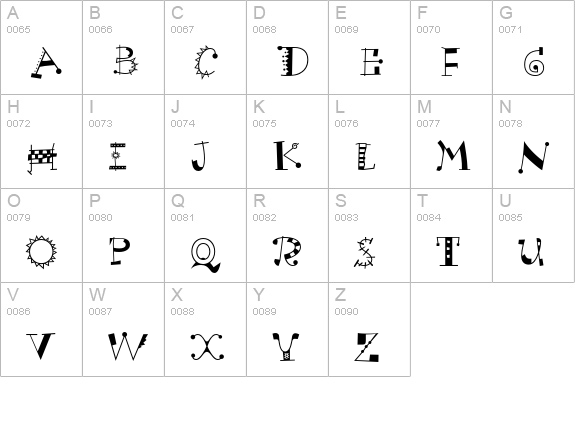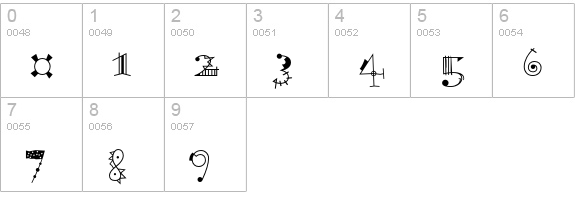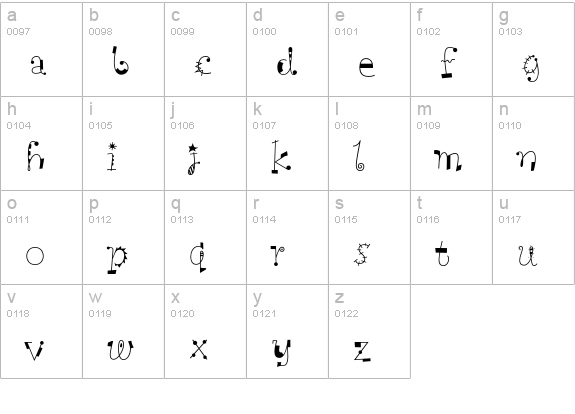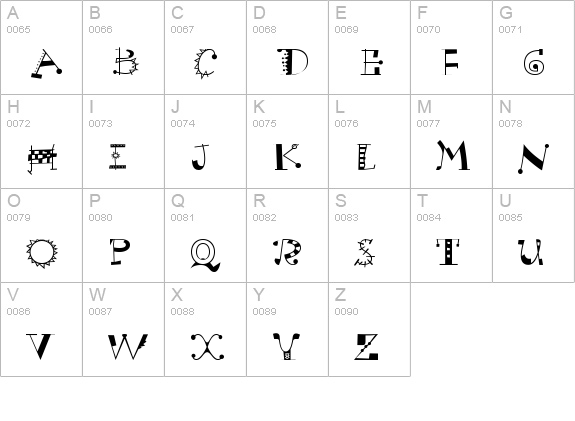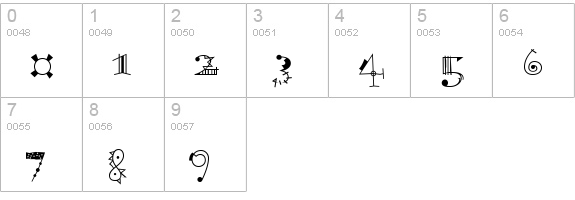
Scruff Std Font Details
Introducing Scruff Std, a versatile and distinctive font that captures the essence of creativity and uniqueness. With its rough edges and playful demeanor, Scruff Std adds an edgy charm to any design project. Whether you're working on a bold poster, a striking logo, or a captivating website, this font is sure to make a lasting impression. Designed with attention to detail, Scruff Std offers a wide range of characters, including uppercase letters, lowercase letters, numbers, and punctuation marks. Each character is meticulously crafted to maintain its rough and rugged appearance, adding character and personality to your designs. One of the best features of Scruff Std is that it is free! Yes, you read that right. This incredible font is freely available to download at FontsMarket.com. So if you're looking to add a touch of rawness and creativity to your next project, look no further than Scruff Std. It's the perfect choice for those who want to stand out from the crowd and make a statement. Whether you're a professional designer or a creative enthusiast, Scruff Std is a must-have font in your collection. Its versatility and unique style make it suitable for various design projects, from branding and advertising to social media graphics and more. So don't miss out on this amazing opportunity to enhance your designs with a free download of Scruff Std at FontsMarket.com. Experience the power of Scruff Std and let your creativity run wild. Download it now and unleash a whole new level of design possibilities.